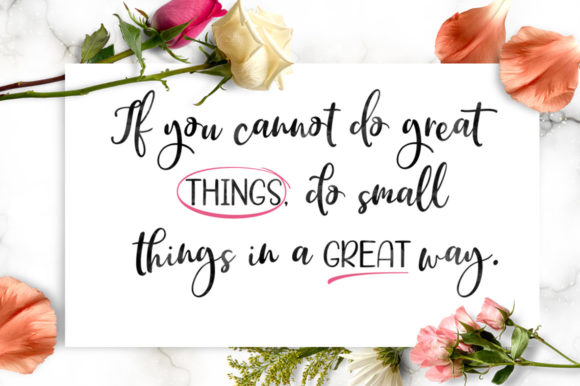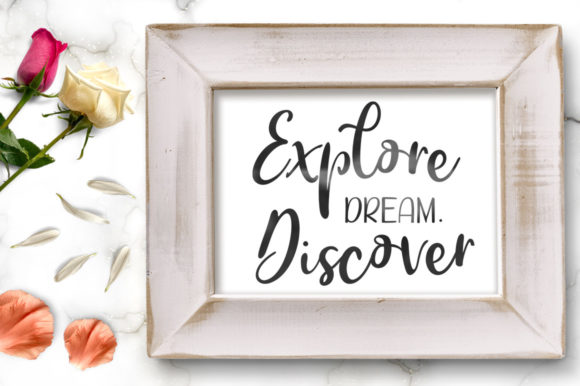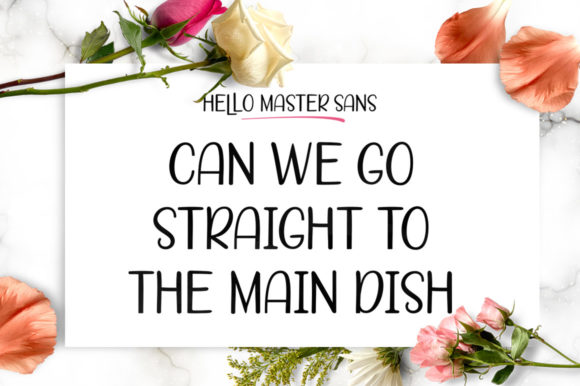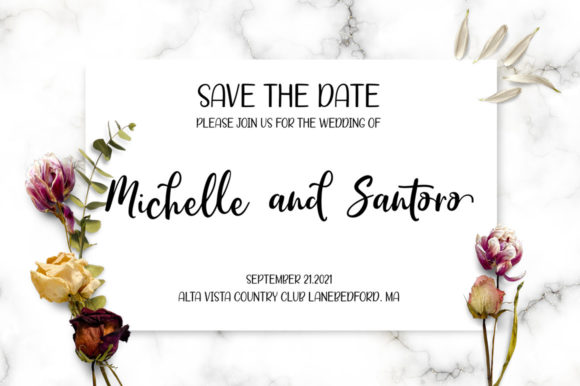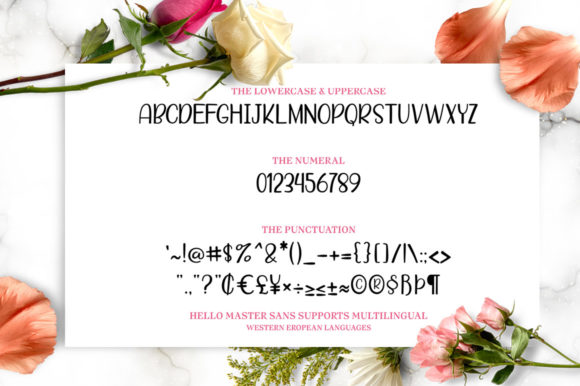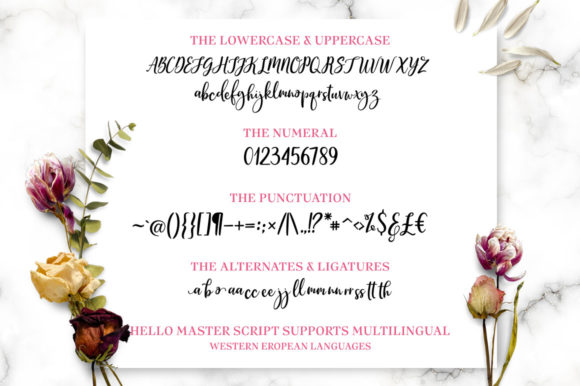
Unlocking the Perfect Touch for Your Designs
Imagine you’re brainstorming ideas for a special occasion – perhaps a wedding or a milestone birthday. You’re envisioning a beautiful invitation, a heartfelt thank you note, or a stunning logo. The design is coming together, but something’s missing – that special je ne sais quoi that sets it apart. That’s where the Hello Master Trio Font comes in – a versatile, PUA-encoded font that adds a customized touch to any design.
This lovely sans serif, script, and dingbats font is a designer’s dream come true. With its stunning aesthetic, it’s perfect for wedding invitations, thank you cards, quotes, greeting cards, logos, business cards, and more. The Hello Master Trio Font’s PUA encoding makes it easy to access all of its glyphs and swashes, giving designers the freedom to get creative and push the boundaries of their designs.
Hello Master Trio Font Key Features
- Font Family: A unique and elegant script font, ideal for formal and creative purposes.
- Unique Characteristics: Features a flowing, handwritten feel with subtle variations in letterforms, adding a touch of personality to any text.
Hello Master Trio Font Review
First off, I want to say that I really appreciate the unique style of the Hello Master Trio Font. It’s a bold, eye-catching font that’s perfect for making a statement. The combination of rounded edges and geometric shapes works really well together ✨. The font is also highly legible, even at smaller font sizes.
One of the things I love about this font is its versatility. It can be used for a wide range of designs, from modern logos to vintage-inspired posters. The font also comes in three different weights (Light, Regular, and Bold), which gives you a lot of flexibility when it comes to customizing your designs.
However, there are a few limitations to the font that I want to point out ⚠️. For one, it can be a bit difficult to read at very small font sizes. Additionally, the font may not be suitable for use in body text, as it can be a bit overwhelming.
- Unique blend of rounded edges and geometric shapes ✨
- Highly legible, even at smaller font sizes
- Three different weights (Light, Regular, and Bold)
- Perfect for making a statement
- Can be used for a wide range of designs
Overall, I think the Hello Master Trio Font is a great choice for designers who want to add some visual interest to their designs. While it may have a few limitations, its unique style and versatility make it a valuable addition to any design library.
For optimal results, use the “Hello Master Trio Font” in conjunction with a bold and colorful design. This font is ideal for headings and titles due to its unique and playful style.
The “Hello Master Trio Font” is commonly used for:
– Creative headings and titles
– Infographics and educational materials